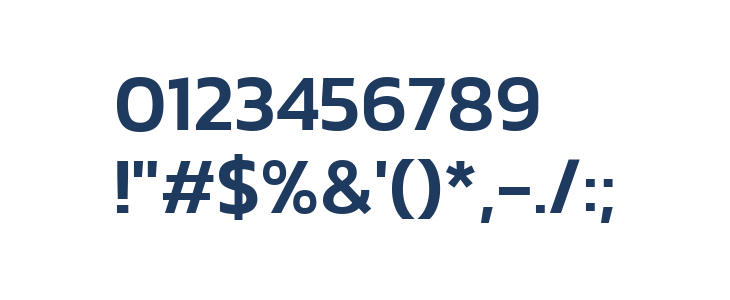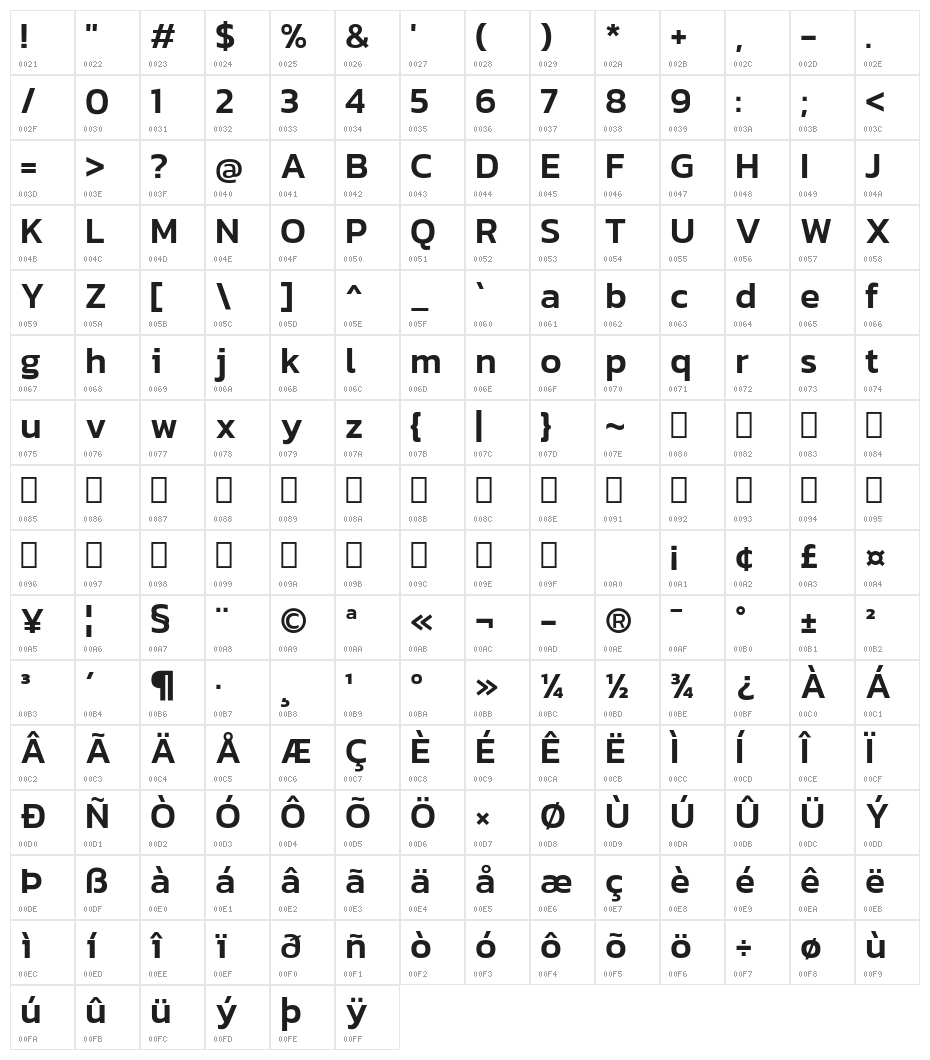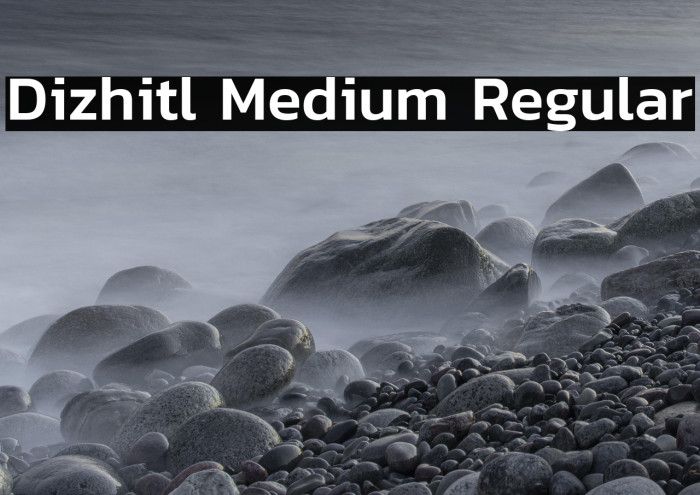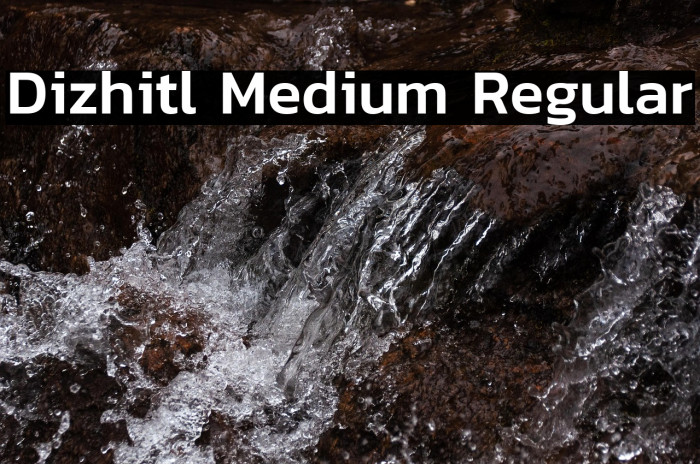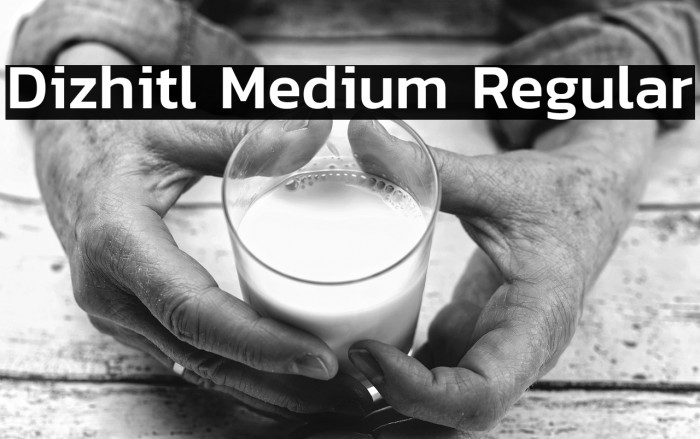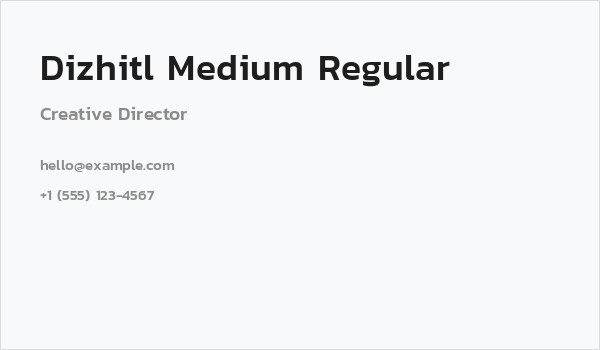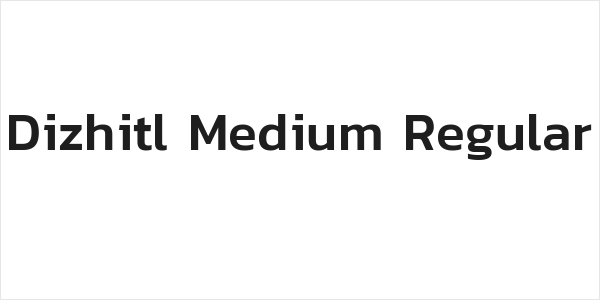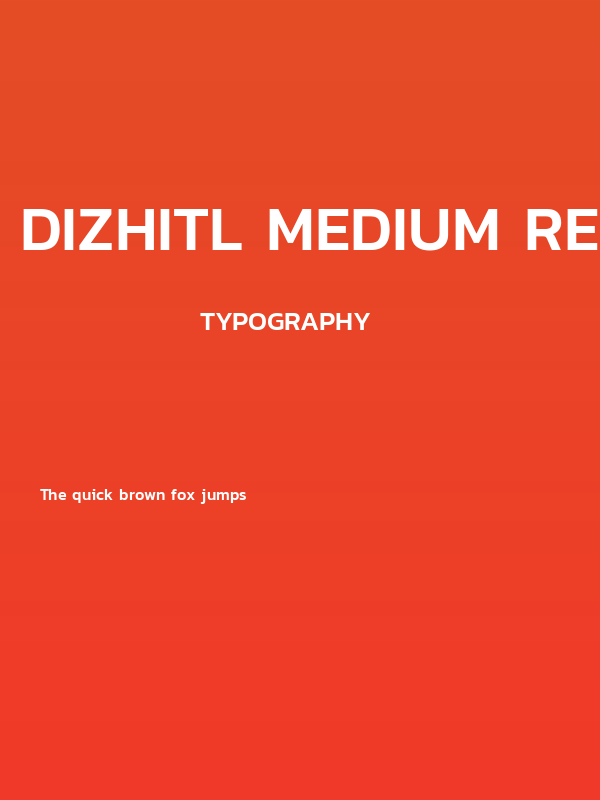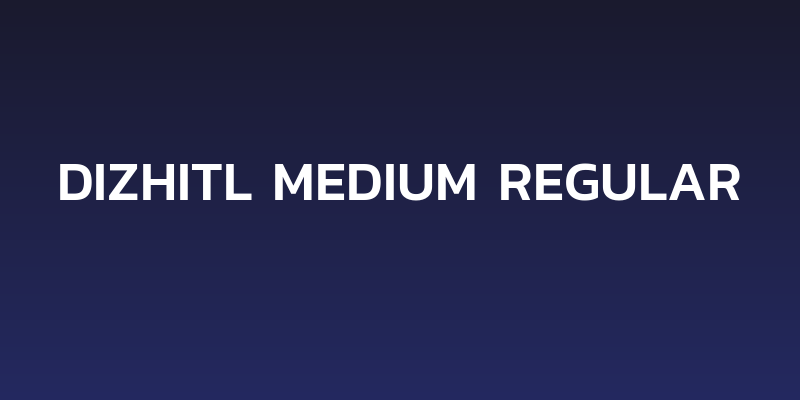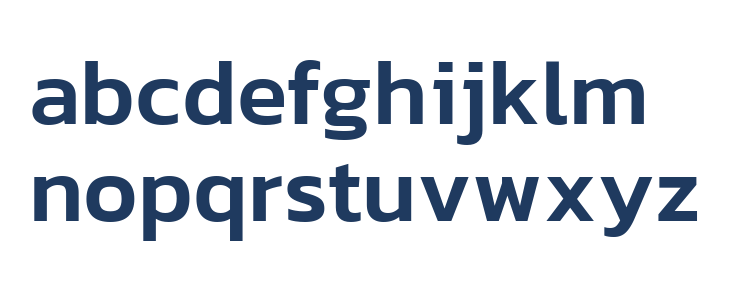
Dizhitl Medium Regular Font
Dizhitl Medium Regular Description
This font features a clean and modern sans-serif design, characterized by its bold and uniform stroke width. The characters are well-proportioned with a consistent height, providing excellent readability. The uppercase letters are strong and assertive, while the lowercase letters maintain a friendly and approachable appearance. The numerals are clear and distinct, making them ideal for both digital and print applications. Special characters are well-integrated, ensuring versatility across various contexts. The overall design is sleek and contemporary, suitable for a wide range of uses.
| Proposed Projects | Ideal for branding, advertising, web design, and editorial projects where clarity and modernity are key. |